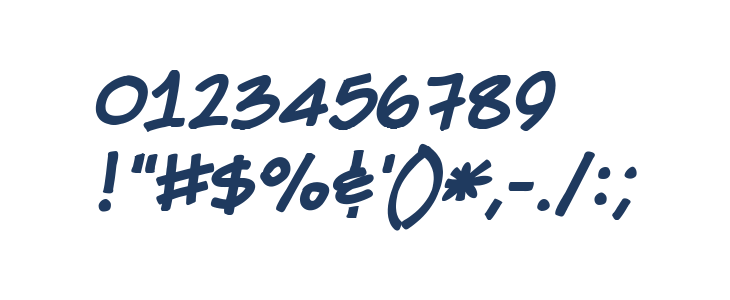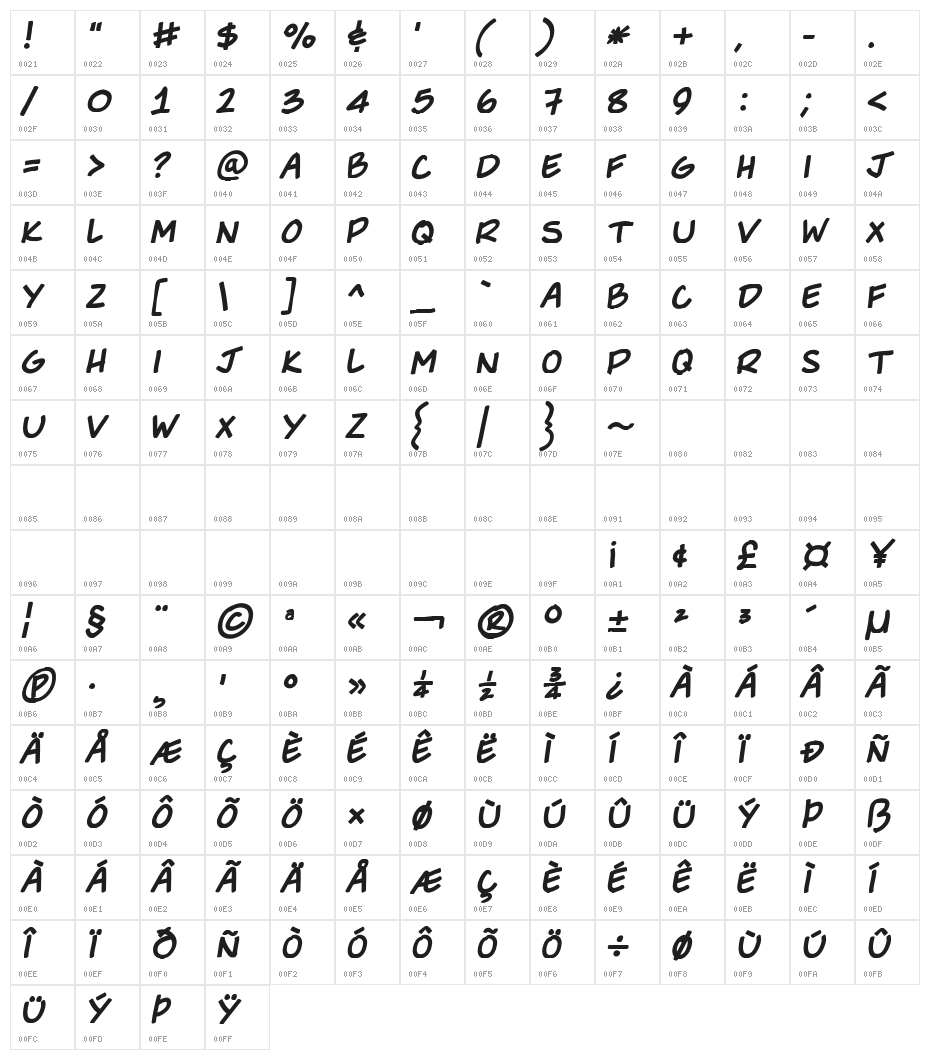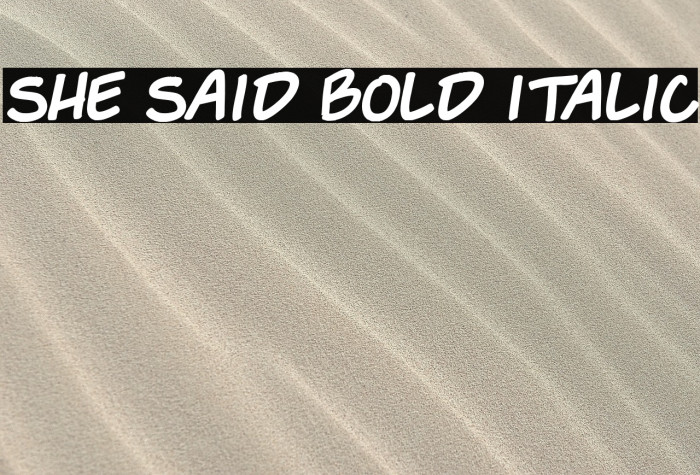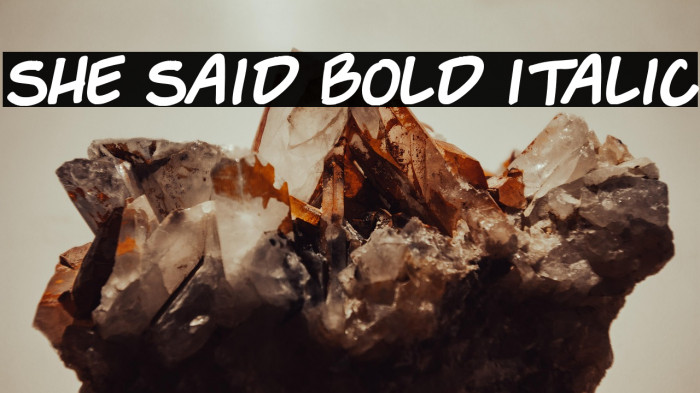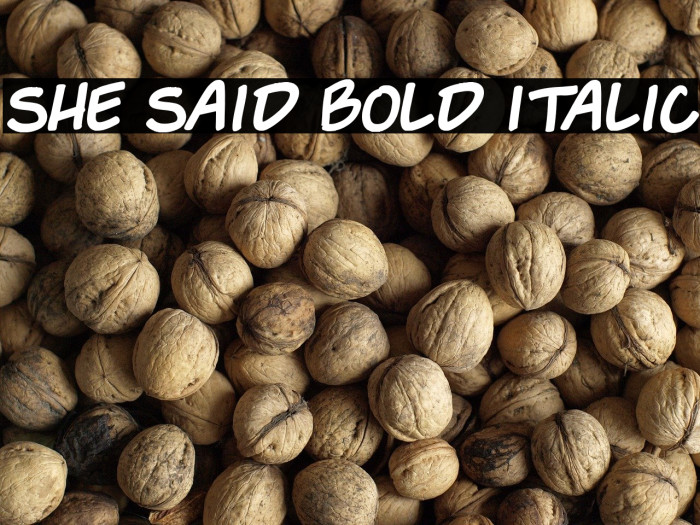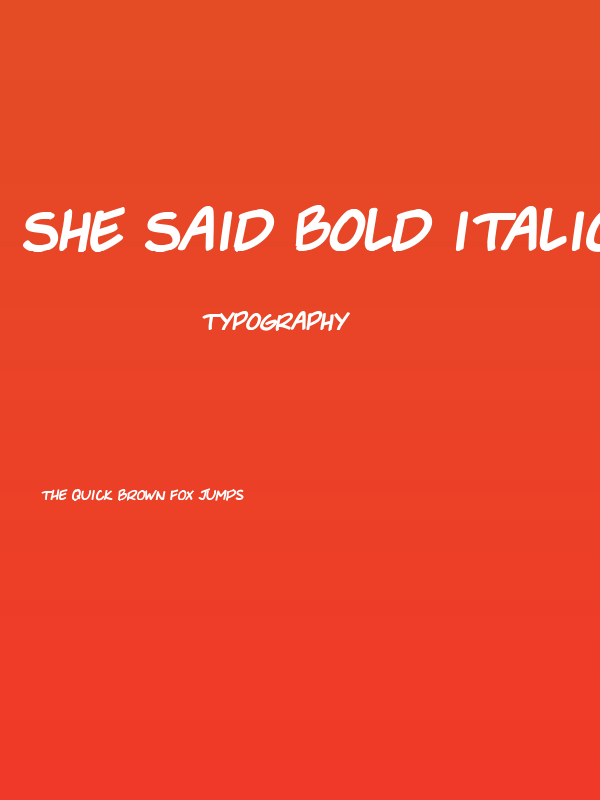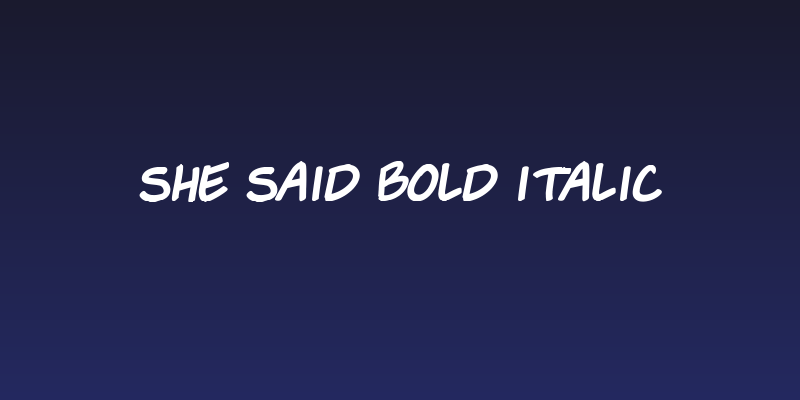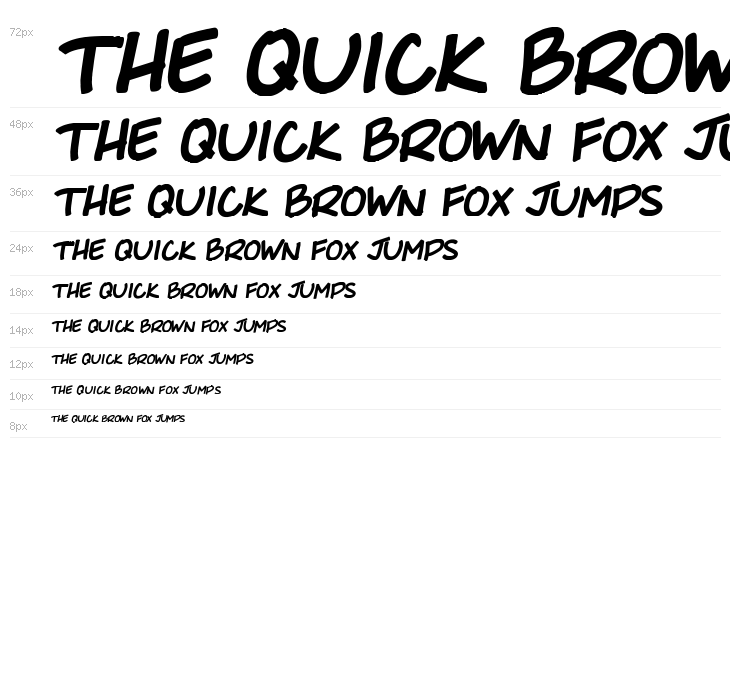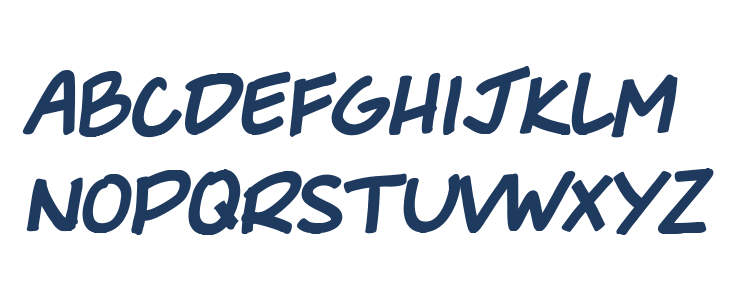
She Said Bold Italic Font
She Said Bold Italic Description
This font features a bold and italicized style with a handwritten appearance, giving it a dynamic and energetic feel. The characters are slightly slanted, enhancing the italic effect, and the boldness adds a strong presence. The strokes are consistent in thickness, providing a uniform look across all characters. The font includes a full set of uppercase and lowercase letters, numbers, and a variety of special characters. Its playful yet assertive style makes it suitable for projects that require a personal touch while maintaining clarity and impact.
| Proposed Projects | Ideal for branding, posters, social media graphics, and any design needing a personal and impactful touch. |